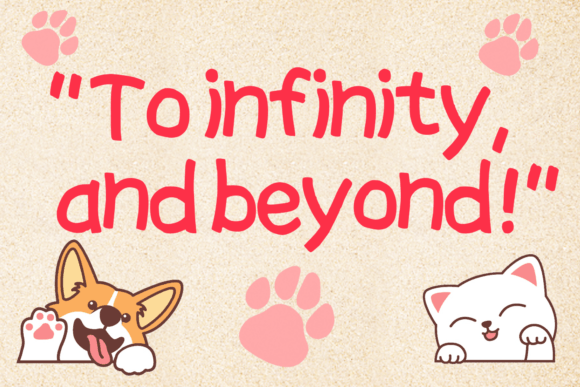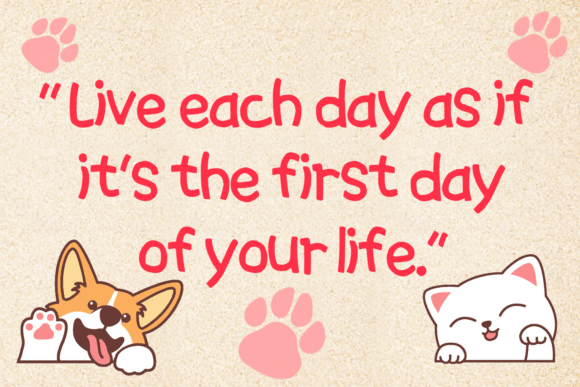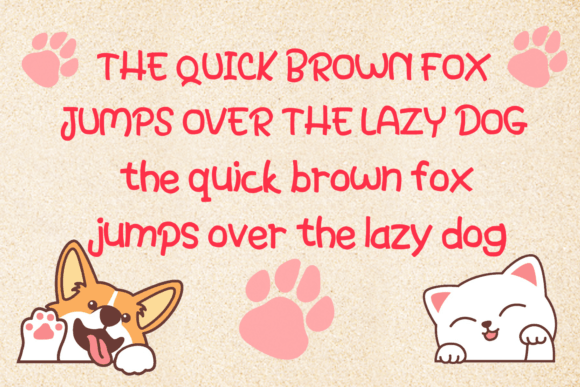
Dogs and Cats Font: The Purr-fect Addition to Your Design Collection
Are you tired of using the same old fonts in your designs? Look no further than the Dogs and Cats font, a fun and playful handwritten font that’s sure to bring a smile to your face. With its incredibly versatile style, you can use it for a wide range of projects, from t-shirts and kids’ book designs to greeting cards and posters. In this article, we’ll dive into the world of Dogs and Cats font and explore its many uses and benefits.
A Font that’s Off the Chain
Dogs and Cats font is a handwritten font that’s full of personality. Its playful and casual style makes it perfect for designs that need a bit of whimsy and fun. The font is reminiscent of a child’s scribbles, making it ideal for kids’ book designs, stickers, and other projects aimed at a younger audience. But don’t be fooled – its versatility means it can also be used for more mature designs, such as greeting cards and posters.
What Makes Dogs and Cats Font So Special?
So, what sets Dogs and Cats font apart from other fonts out there? For starters, its unique and quirky style makes it instantly recognizable. The font features bold lines, irregular shapes, and a dash of playfulness that’s hard to find in other fonts. Additionally, the font is incredibly legible, making it easy to read and understand, even at smaller sizes.
Uses for Dogs and Cats Font
The possibilities are endless when it comes to using Dogs and Cats font. Here are just a few ideas to get you started:
- T-shirts and apparel: Add a fun and playful touch to your t-shirt designs with Dogs and Cats font. It’s perfect for creating eye-catching and memorable designs that will stand out from the crowd.
- Kids’ book designs: Create engaging and interactive kids’ books with Dogs and Cats font. Its playful style is sure to delight children and parents alike.
- Greeting cards: Add a personal touch to your greeting cards with Dogs and Cats font. Its casual style makes it perfect for birthday cards, get-well cards, and other informal greetings.
- Stickers and posters: Create fun and colorful stickers and posters with Dogs and Cats font. Its bold lines and irregular shapes make it perfect for eye-catching designs.
Tips for Using Dogs and Cats Font
Here are a few tips to keep in mind when using Dogs and Cats font:
- Keep it simple: While Dogs and Cats font is playful and fun, it’s still a script font. Keep your designs simple and uncluttered to ensure the font shines.
- Experiment with colors: Dogs and Cats font looks great in a variety of colors. Experiment with different hues and combinations to find the perfect look for your design.
- Mix and match: Don’t be afraid to mix and match Dogs and Cats font with other fonts. Its unique style makes it a great addition to font combinations.
In conclusion, Dogs and Cats font is a fun and playful handwritten font that’s perfect for designers and crafters looking to add a bit of whimsy to their designs. Its incredibly versatile style makes it suitable for a wide range of projects, from t-shirts and kids’ book designs to greeting cards and posters. With its unique and quirky style, Dogs and Cats font is sure to become a favorite in your design collection.
Get Ready to Fall in Love with Dogs and Cats Font